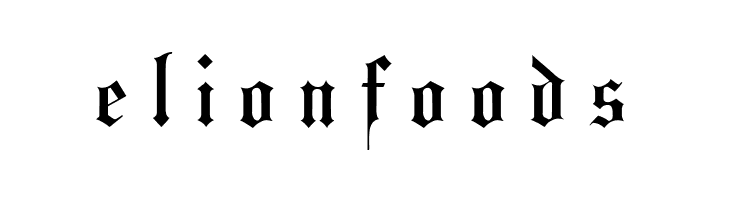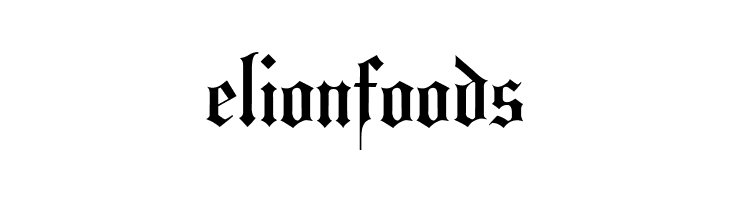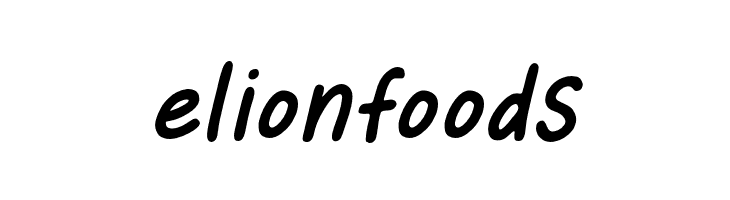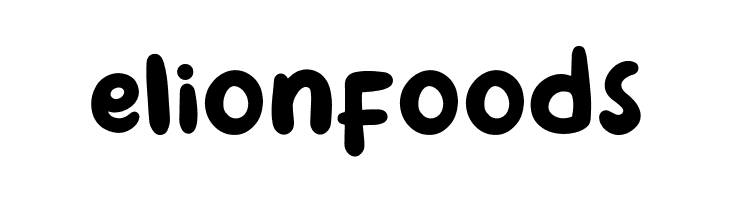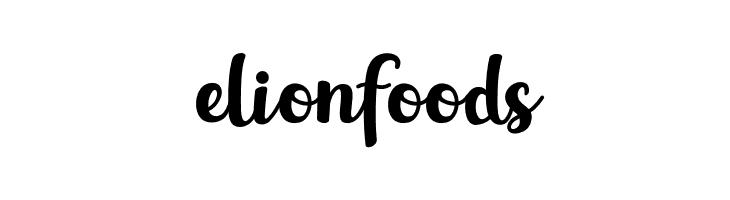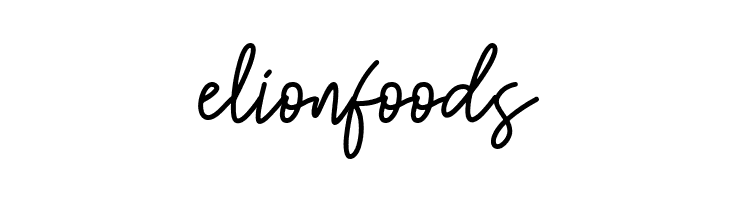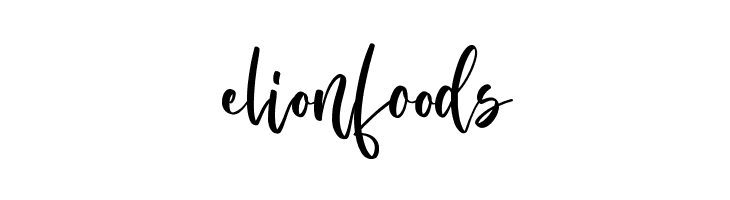
A bold, edgy font with sharp angles and a rebellious style.
A modern, geometric font with tall, narrow letters and clean lines.
A geometric, tech-inspired font with a pixelated, futuristic design.
A futuristic, pixelated font with a geometric and mechanical design.
A bold, geometric font with a digital, pixel-art style.
A futuristic, geometric outlined font with sharp, angular forms.
A futuristic, geometric italic font with a digital and tech-inspired style.
A bold, distressed font with a grunge, textured appearance.
A rugged, distressed font with a handcrafted, textured appearance.
A geometric, futuristic font with a modular and minimalistic design.
A bold, angular font with sharp, pointed elements and a dramatic, modern gothic style.
A distressed serif font with a grunge, vintage aesthetic.
A distressed, graffiti-like font with jagged, uneven strokes and a rebellious aesthetic.
Bold, angular font with a distressed texture and geometric influence.
A bold, jagged font with a haunting, hand-drawn style.
An elegant, flowing script font with intricate loops and swirls.
A bold, dripping font with a rugged, natural aesthetic.
A playful and whimsical script font with decorative swirls and interconnected letters.
A playful, heart-themed decorative font with tall, narrow letters.
A bold, angular font with a futuristic and dynamic design.
An elegant and sophisticated cursive font with decorative swirls.
A bold, playful, hand-drawn font with a whimsical style.
A bold, geometric font with a futuristic, stencil-like design.
A bold, retro-inspired font with playful curves and swirls.